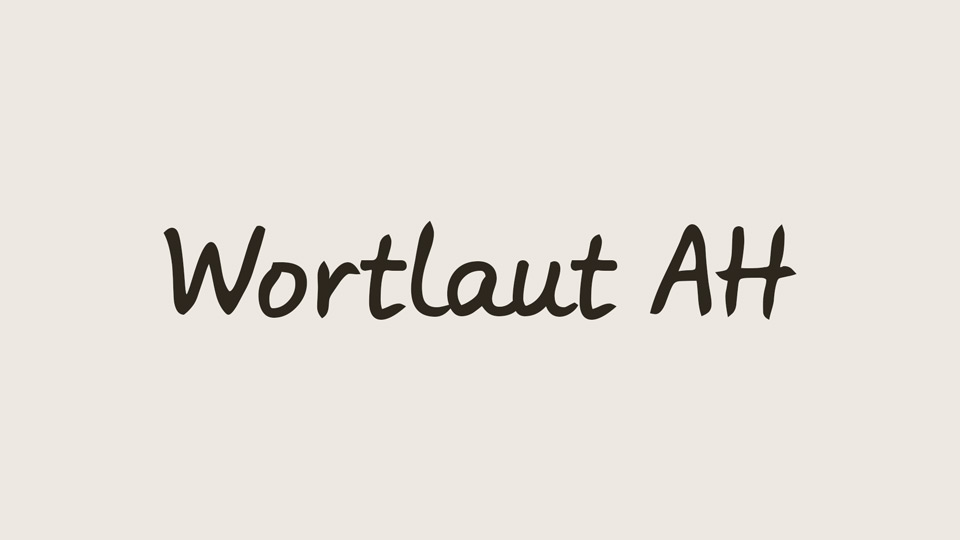
Download Wortlaut AH font, a typeface that imitates a casual handwriting with “printed” letters. It does not look extravagant or constructed or calligraphic, simply a neat and clean hand for e.g. shopping lists or sticky notes.